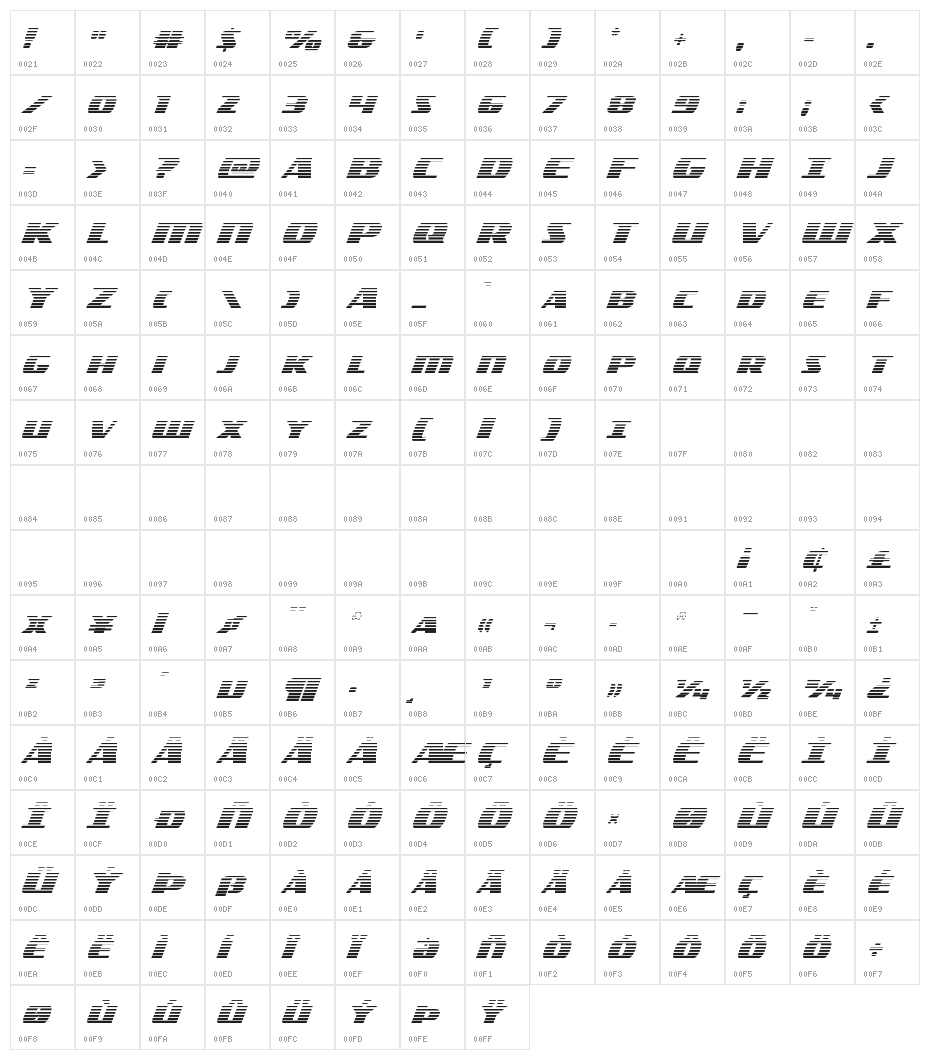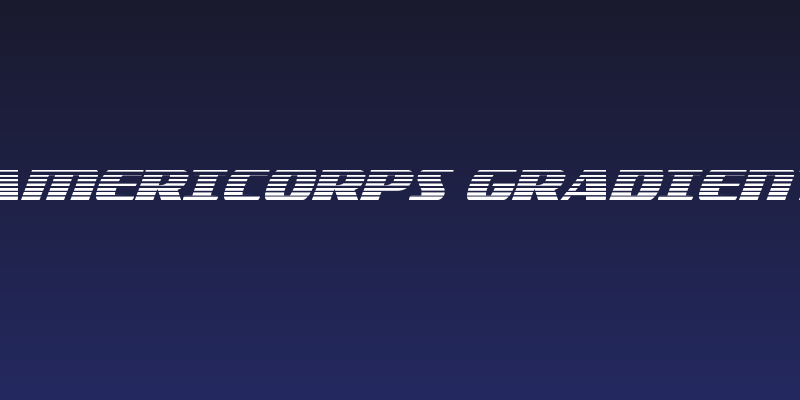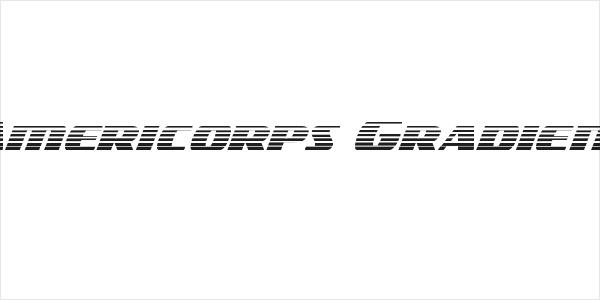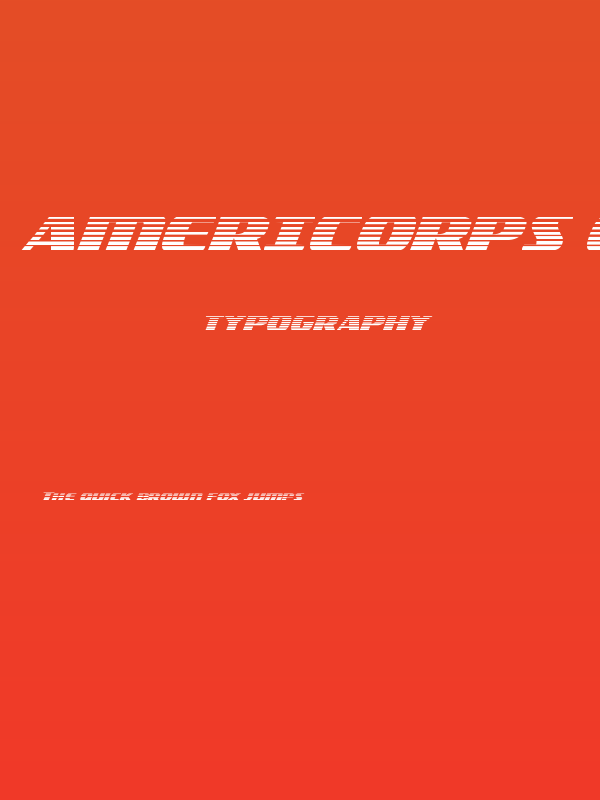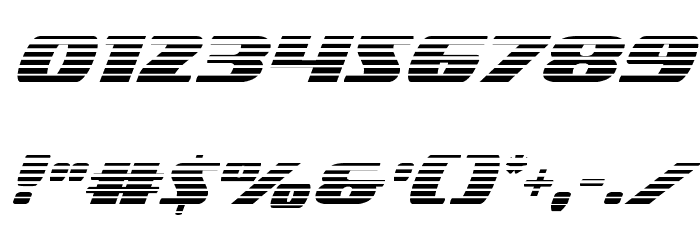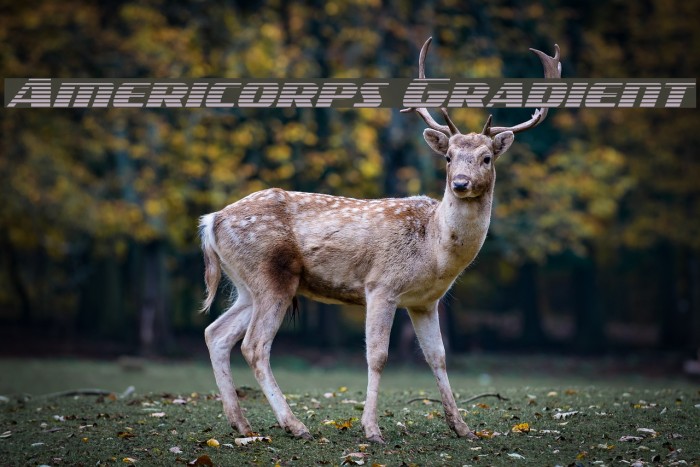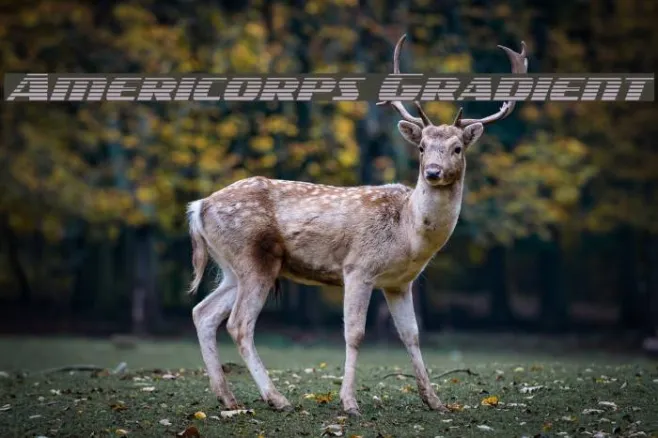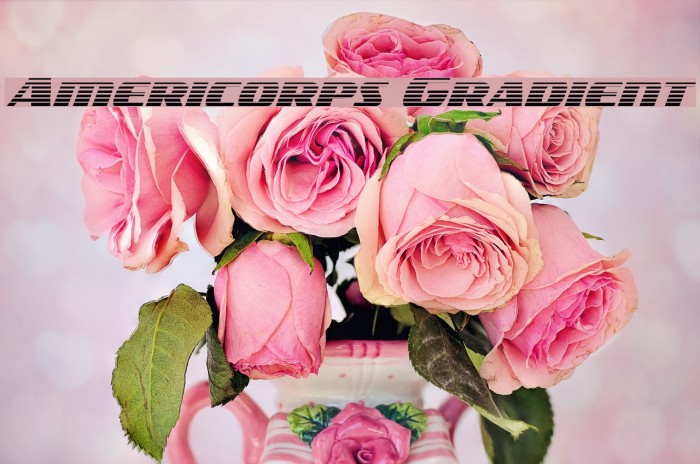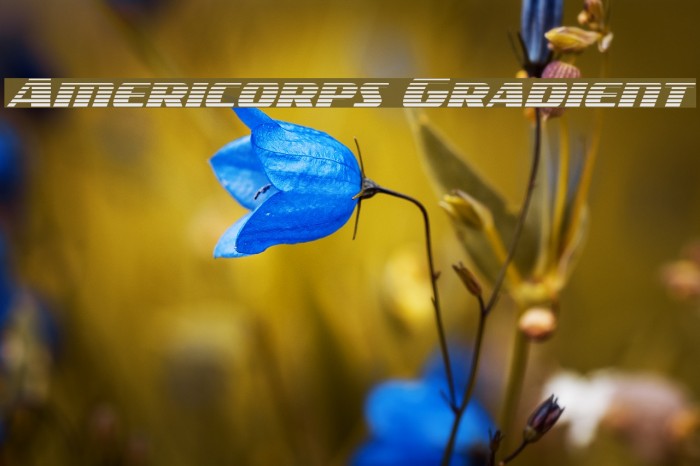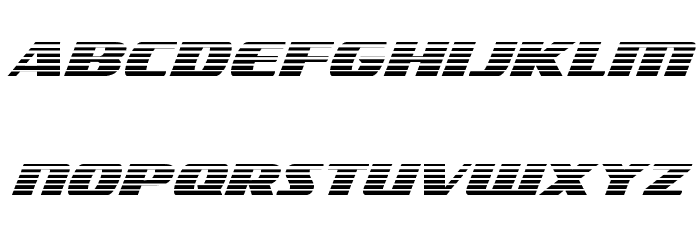
Americorps Gradient Font
Americorps Gradient Description
This font features a dynamic and modern design with a distinctive striped pattern running horizontally across each character. The uppercase and lowercase letters, as well as numbers and special characters, all share this unique gradient effect, giving the font a sense of movement and energy. The bold, geometric shapes of the letters are complemented by the consistent spacing between the stripes, creating a cohesive and eye-catching appearance. This font is ideal for projects that require a futuristic or sporty aesthetic, as its design conveys speed and innovation.
AMERICORPS-GRADIENT UPPERCASE
AMERICORPS-GRADIENT LOWERCASE
AMERICORPS-GRADIENT OTHER CHARS
| Proposed Projects | Ideal for sports branding, futuristic designs, tech-related projects, and dynamic advertising campaigns. |